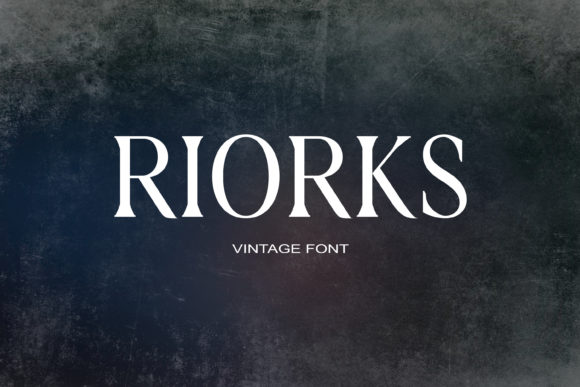
Behold Riorks, a font that emanates raw power and elegance like no other. Crafted by the ingenious minds at DmDesignsStoreArt, Riorks embodies the essence of sophistication and strength. This serif font captivates with its bold, confident strokes and unique ligatures. Dive into the world of Riorks and unlock the gateway to stunning designs.
Riorks is not just a font; it's an experience. Its meticulously designed characters exude individuality, making each word you type a captivating visual masterpiece. With Riorks, your creations will command attention and leave a lasting impression. Whether you're crafting logos, branding materials, or eye-catching headlines, Riorks will elevate your designs to new heights of brilliance.
Imagine the impact of a logo adorned with Riorks' bold, commanding presence. Your brand message will resonate with unwavering strength and clarity. Unleash the power of Riorks in your branding materials and watch as your message cuts through the noise, leaving an unforgettable mark on your audience's minds.
But Riorks is more than just a powerhouse for logos and branding. Its versatility extends far beyond the confines of traditional design. Let Riorks ignite your creativity in crafting captivating headlines that demand attention. Its distinct character will add a spark of intrigue to your words, drawing readers in and leaving them eager to explore your content.
In the world of design, Riorks is a game-changer. It's a font that breathes life into your creations, transforming them from ordinary to extraordinary. With Riorks by your side, you'll discover a new level of design excellence, where your imagination knows no bounds.
So, embark on this typographic adventure with Riorks and witness the transformation of your designs. Let its charm captivate your audience, and let its strength elevate your message to unprecedented heights.